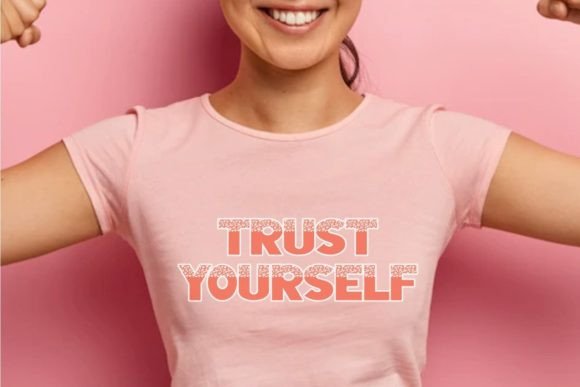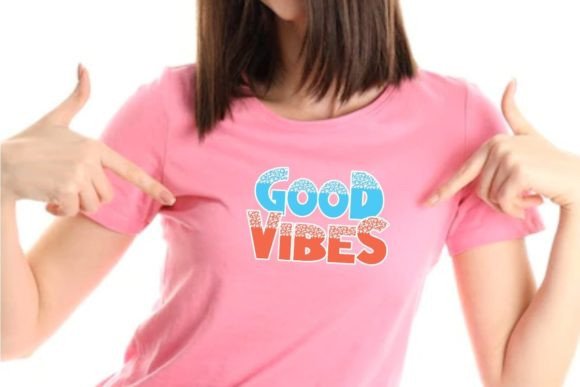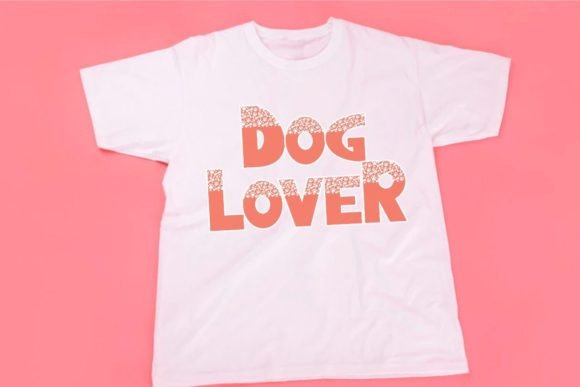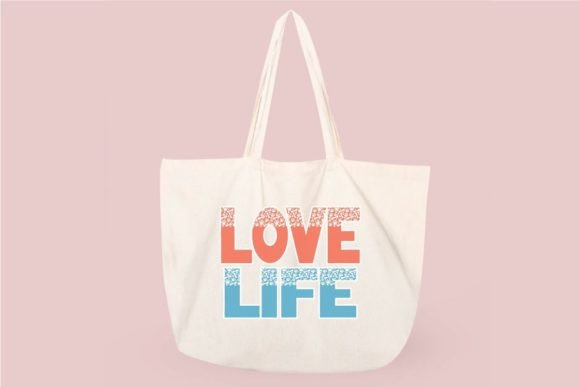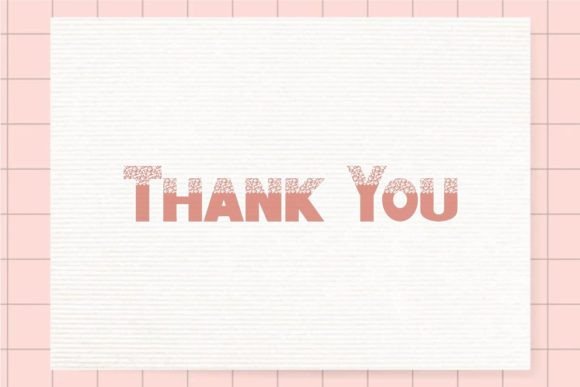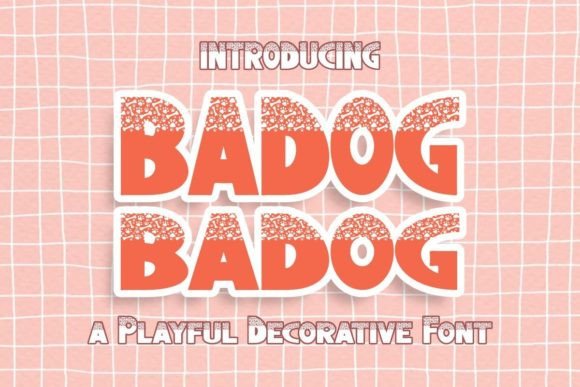
Introducing Badog Font: The Paw-fect Choice for Dog Lovers and Designers
Are you a dog lover looking for a unique and bold font to express your passion? Or perhaps a designer seeking a fresh and creative typography for your next project? Look no further than Badog Font, a vibrant and decorative font that’s sure to make a statement. In this article, we’ll dive into the world of Badog Font, exploring its features, uses, and benefits for designers and crafters alike.
What is Badog Font?
Badog Font is a one-of-a-kind, bold decorative font that showcases a partially paw pattern, making it an inspired choice for dog enthusiasts. Its distinctive design is both fun and eye-catching, perfect for adding a personal touch to various projects. Whether you’re looking to create custom apparel, accessories, or promotional materials, Badog Font is the perfect choice.
Key Features of Badog Font
- Vibrant and Bold Design: Badog Font boasts a lively and attention-grabbing design that’s sure to stand out from the crowd.
- Partially Paw Pattern: The font’s unique paw pattern adds a playful touch, making it a must-have for dog lovers.
- Versatile: Badog Font can be used for a wide range of projects, from printing on shirts and mugs to creating digital content.
Uses for Badog Font
Badog Font is perfect for a variety of projects, including:
- Custom Apparel: Add a personal touch to t-shirts, hoodies, and hats with Badog Font.
- Mugs and Drinkware: Create unique and fun designs for coffee mugs, water bottles, and other drinkware.
- Accessories: Use Badog Font to create custom designs for tote bags, phone cases, and other accessories.
- Digital Content: Add a bold and playful touch to social media graphics, blog posts, and website headers.
Badog Font offers numerous benefits for designers and crafters, including:
- Unique Designs: Stand out from the crowd with Badog Font’s distinctive design.
- Increased Engagement: Add a playful touch to your projects and capture your audience’s attention.
Tips for Using Badog Font
Here are some tips for getting the most out of Badog Font:
- Experiment with Colors: Try pairing Badog Font with different colors to create unique and eye-catching designs.
- Mix and Match: Combine Badog Font with other fonts and graphics to create complex and interesting designs.
- Keep it Simple: Don’t be afraid to use Badog Font on its own – its bold design can make a statement on its own.
Badog Font is a vibrant and bold decorative font that’s perfect for dog lovers and designers alike. Its unique paw pattern and versatile design make it an inspired choice for a wide range of projects. Whether you’re looking to create custom apparel, accessories, or digital content, Badog Font is the perfect choice. So why wait? Download Badog Font today and start creating unique and eye-catching designs that are sure to make a statement!